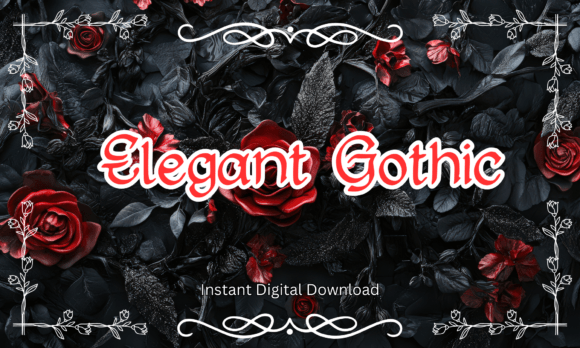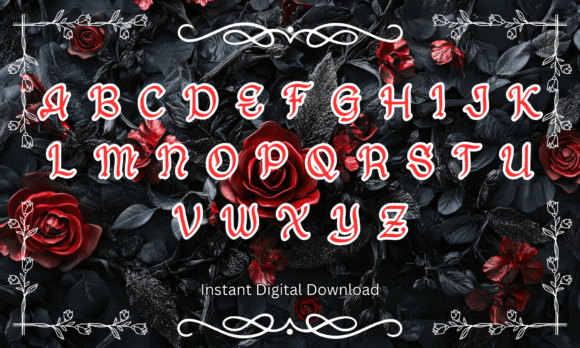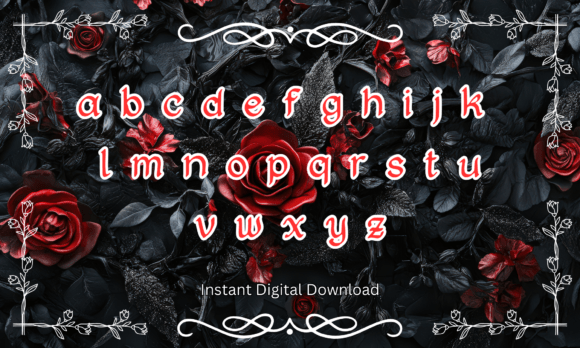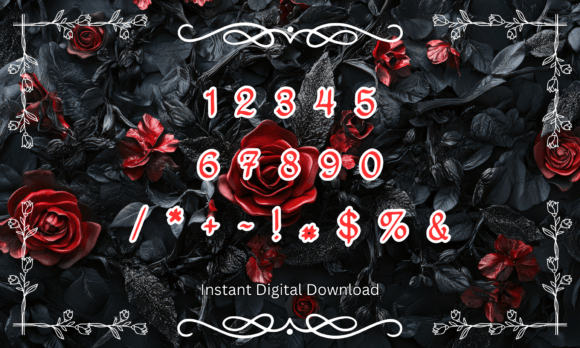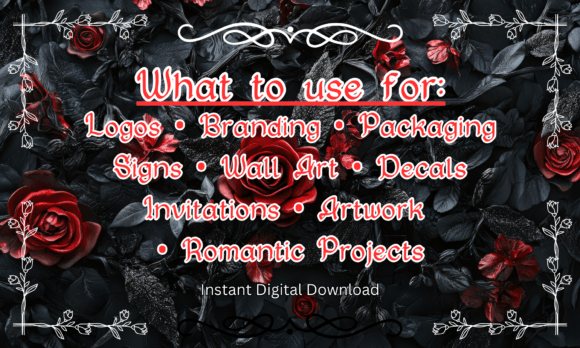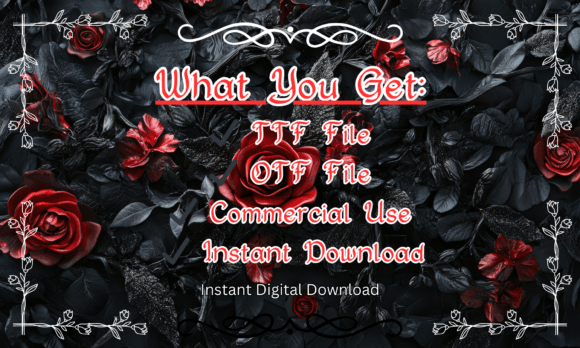
Unleash the Mystery of Elegant Gothic Font
Have you ever sat down to create a design, and the perfect font just wasn’t there? Maybe you were trying to evoke the feeling of a dark, moonlit night, or the romance of a gothic-inspired tale. Whatever the case, you’re not alone – that elusive font can be a real challenge to find. But what if I told you there’s a typeface that can transport your designs to a world of mystery and romance, where darkness meets beauty?
Enter Elegant Gothic Font, a refined and dramatic gothic font designed to balance the edgy with the elegant. With its classic gothic inspiration and smooth, curved lines, this font is perfect for designers looking to create a bold, captivating presence in their work. Whether you’re creating gothic branding, dark romance covers, or Halloween-inspired artwork, Elegant Gothic Font is a valuable addition to any designer’s toolkit.
Elegant Gothic Font Key Features
- Font Family: Elegant Gothic
- Unique Characteristics: Ornate details, gothic-inspired architecture, elegant and refined look, suitable for formal and luxurious designs.
Elegant Gothic Font Review
I recently had the chance to work with the Elegant Gothic Font, and I’m here to share my honest thoughts on its performance.
- The Elegant Gothic Font’s intricate details and ornate design make it perfect for adding a touch of sophistication to any project.
- It’s incredibly versatile, and can be used for both print and digital media, from logos to typography-based artwork.
- The font’s high-quality design ensures that it scales well, maintaining its elegance even at small font sizes.
- As with many ornate fonts, the Elegant Gothic can be overwhelming if used excessively, so be sure to use it sparingly to avoid visual clutter.
- It may not be the best choice for projects where readability is a top priority, as its intricate details can make it difficult to read at a glance.
While the Elegant Gothic Font may have some limitations, its unique design and versatility make it a valuable addition to any designer’s toolkit. With careful use, it can add a touch of elegance and sophistication to any project.
Tip: Use Elegant Gothic for titles and headings to add a touch of elegance to your design.
Tip: Use Elegant Gothic for text overlays or titles to add a sense of drama and sophistication.
Tip: Use Elegant Gothic for headings and titles to add a touch of elegance to your presentation or document.
Elegant Gothic Font is perfect for:
- Designing gothic-inspired graphics and illustrations.
- Creating dramatic and sophisticated titles and headings.
- Adding a touch of elegance to your website or blog.
Alternatives to Elegant Gothic Font
Playfair Display is a luxurious and elegant serif font, perfect for creating a high-end and sophisticated look. It is ideal for use in titles, headings, and other prominent text where a touch of luxury is desired. Playfair Display has a more refined and polished look compared to Elegant Gothic Font, making it suitable for formal and high-end designs.
Great Vibes is a beautiful and elegant script font, ideal for creating a romantic and sophisticated look. It is perfect for use in titles, headings, and other prominent text where a touch of elegance is desired. Great Vibes has a more fluid and cursive look compared to Elegant Gothic Font, making it suitable for designs that require a sense of luxury and refinement.
Carolyna Pro is a modern and elegant serif font, perfect for creating a sophisticated and refined look. It is ideal for use in titles, headings, and other prominent text where a touch of elegance is desired. Carolyna Pro has a more streamlined and modern look compared to Elegant Gothic Font, making it suitable for designs that require a sense of luxury and sophistication.